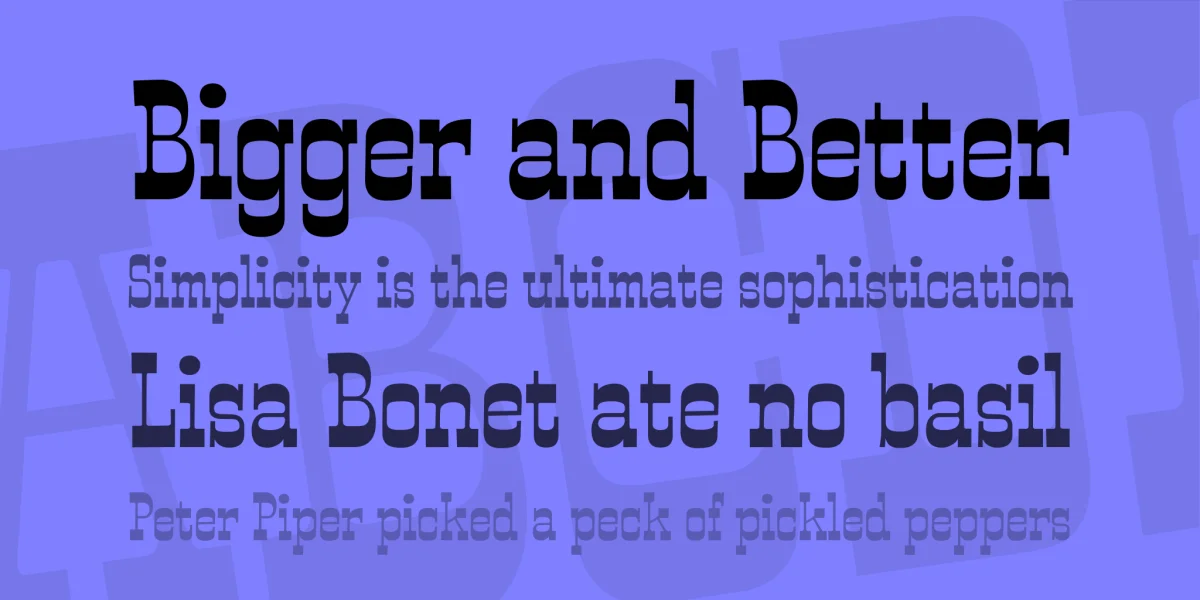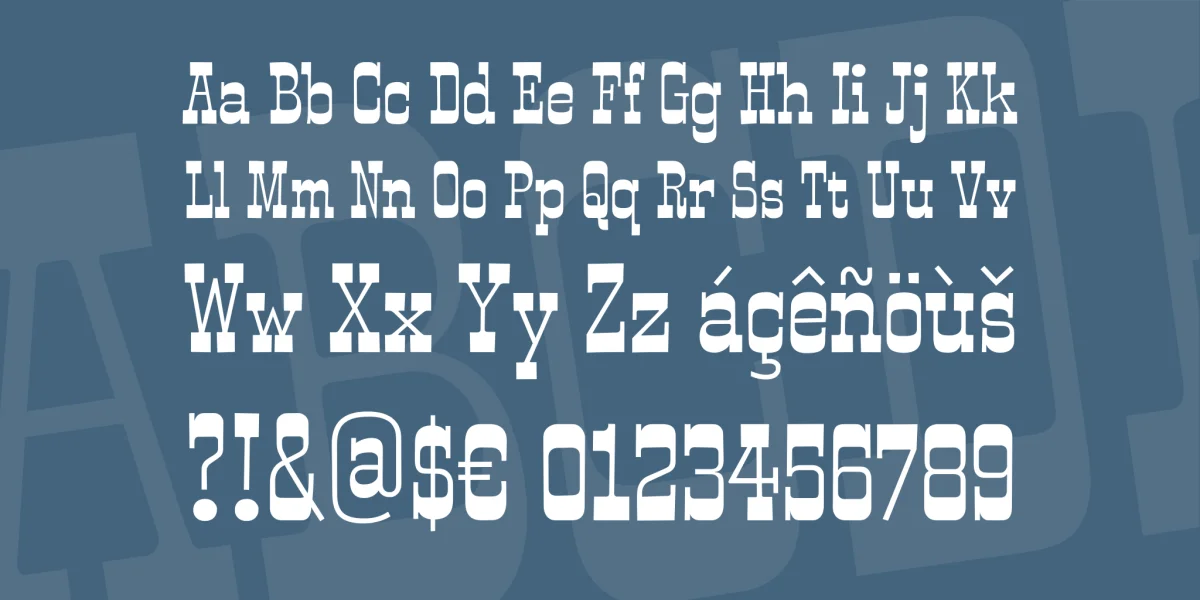
Smokum is a western inspired slab-serif font with a little playful swagger to it. It's perfect for headlines and display uses that require a little loosened up country flair, but because of the contrast of thicks and thins, it will perform best as a WebFont at medium to large point sizes.